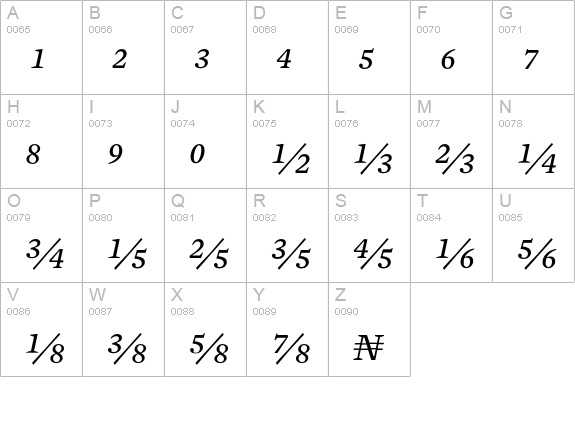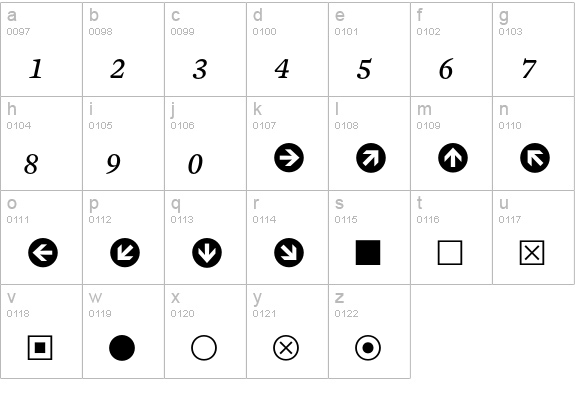
Mercury Numeric G1 Italic is a distinctive, italic variant in the Mercury typeface family \xE2\x80\x94 well suited to design and typography projects.
Introducing the sleek and modern Mercury Numeric G1 Italic font. This dynamic typeface exudes sophistication and elegance, making it perfect for a wide range of design projects. The italicized style adds a touch of flair and distinction to any text, making it stand out with a subtle yet impactful presence. What sets Mercury Numeric G1 Italic font apart is that it is available for free download at FontsMarket.com. This means that you can easily access this high-quality font without any cost, making it a valuable addition to your font library. Whether you're working on branding, editorial design, or any other creative endeavor, Mercury Numeric G1 Italic font is sure to elevate your projects with its refined aesthetic and versatility. Don't miss out on this opportunity to enhance your designs with the Mercury Numeric G1 Italic font. Download it for free today and infuse your work with a touch of sophistication and style.